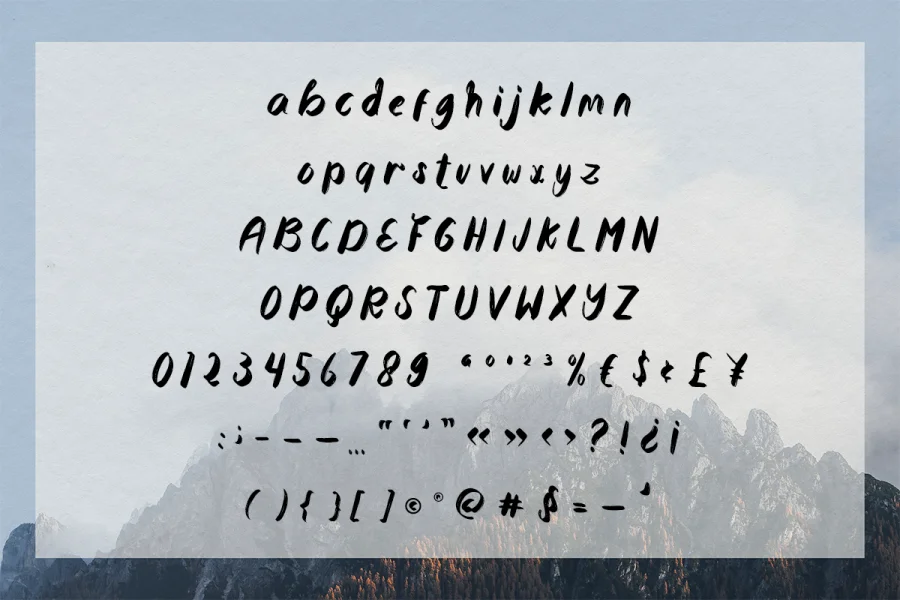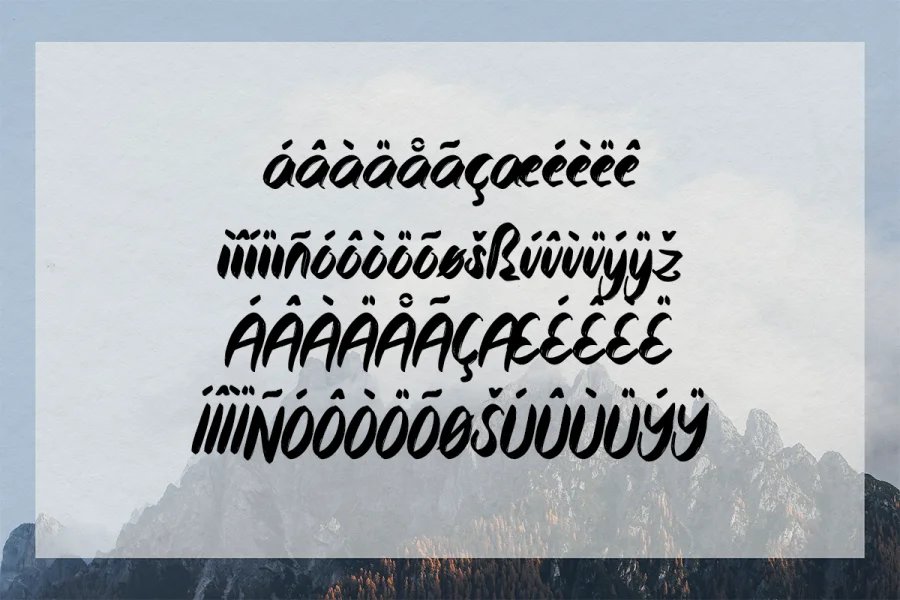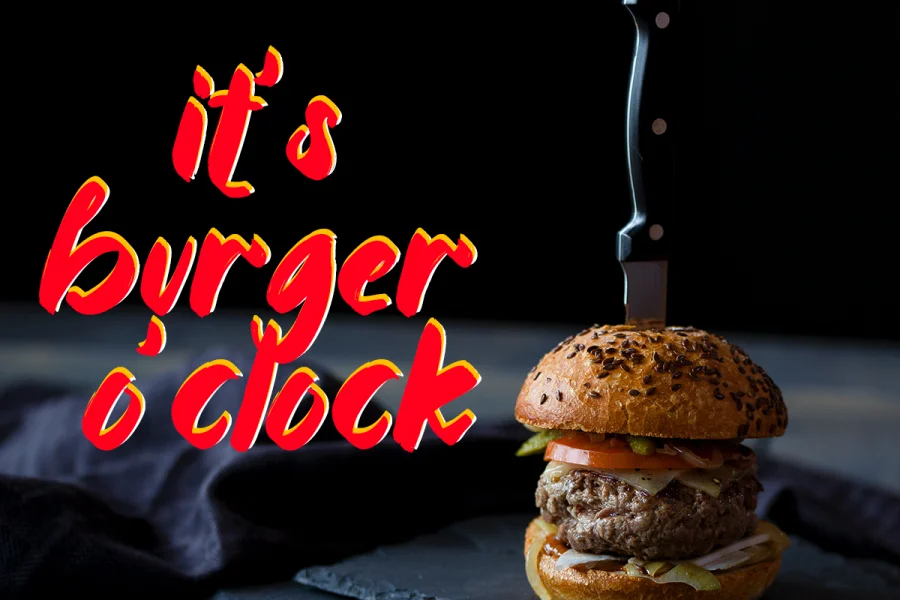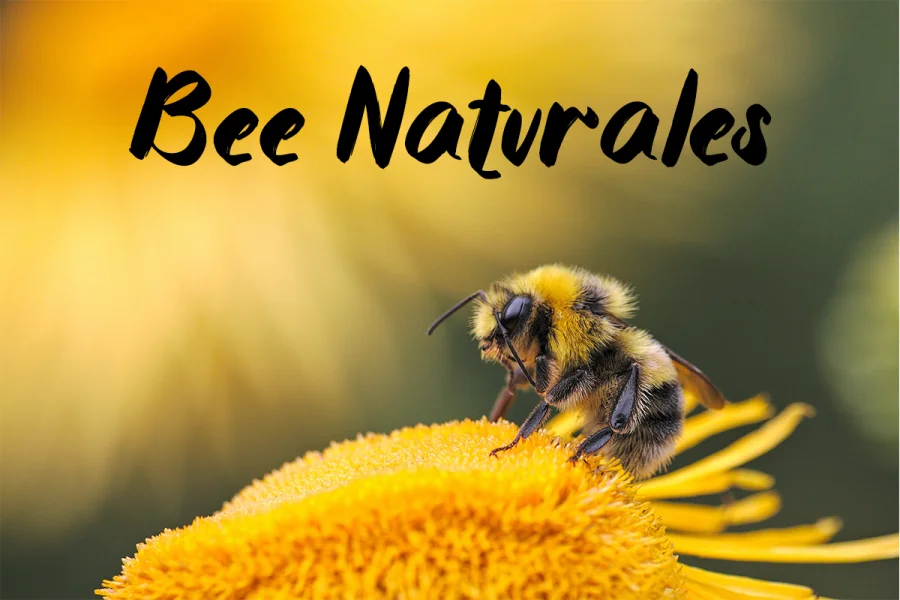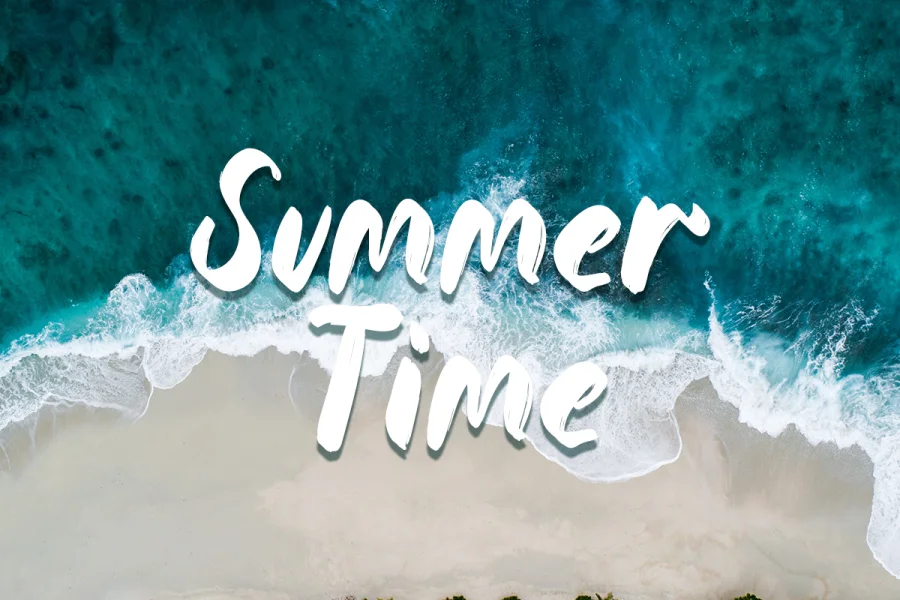
Montego Bay is a lovely paint brushed script font. It has a friendly and modern look that can be used for logos, branding, invitations, stationery, wedding designs, social media posts, and much more!